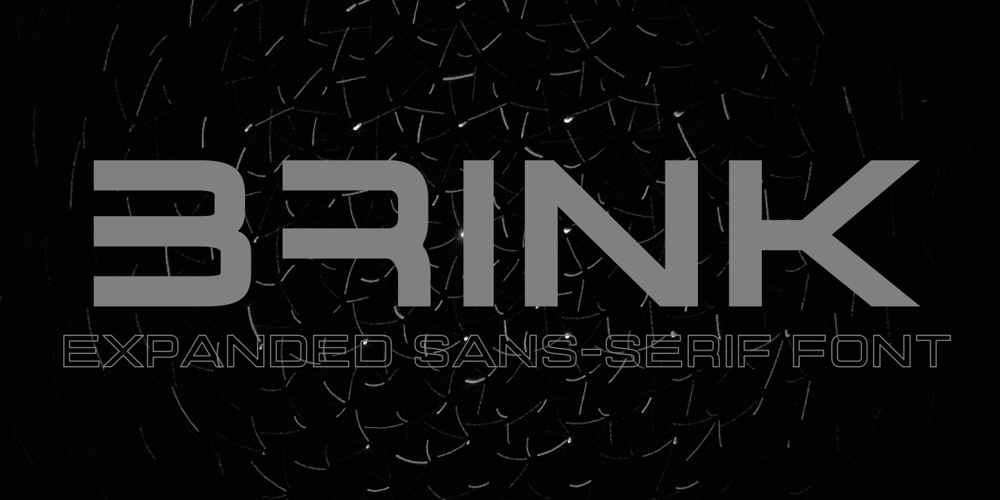
Brink Font Family was designed by Arief Rochman and published by 4RM Font. Brink contains 2 styles and family package options. Inspired by the modern world, the Brink font appears with an extra expanded style combined with geometric letterforms, making this font look stylish, this font is included in the display font category that is suitable for use in graphic design, especially those with futuristic themes.